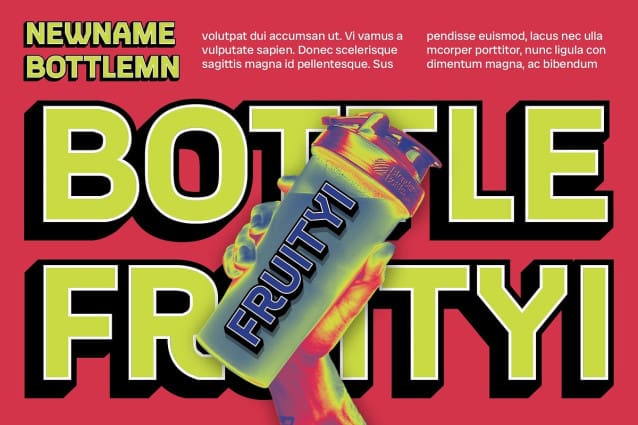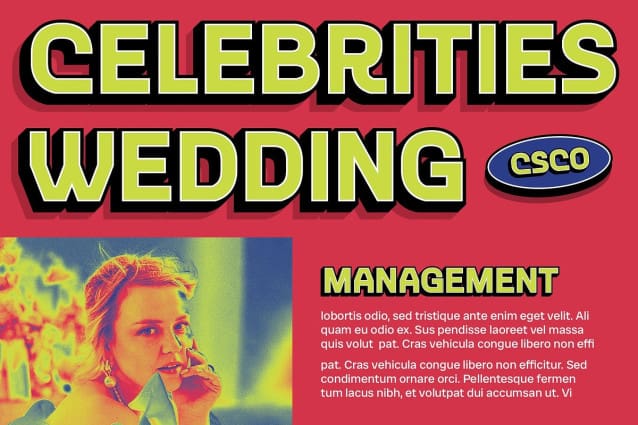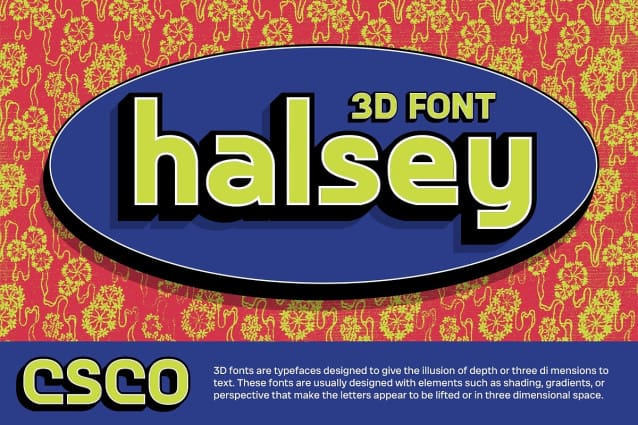
CS Halsey 3D Font
CS Halsey 3D Font is a sans-serif font with 3D shapes. Suitable for designs aiming to present text with an attractive dimensional effect, this font adds depth and visual interest to your projects.
Ideal for Eye-catching Designs Perfect for headlines, banners, and other display purposes, CS Halsey 3D ensures your message is both seen and remembered. Its sans-serif style, combined with 3D shapes, makes it a captivating choice for designs seeking to create an attractive and dynamic impression.
Versatile and Engaging Despite its dimensional effects, this CS 3D font remains versatile and engaging. Its font format makes it suitable for a wide range of projects, from branding to digital designs, where a font that adds depth and visual interest is essential for making a statement.
Perfect for Adding a Dynamic Touch CS Halsey 3D is ideal for projects requiring a font with a dynamic touch. Whether you’re designing a poster, logo, or website, this font will undoubtedly add a distinct and memorable element to your designs.